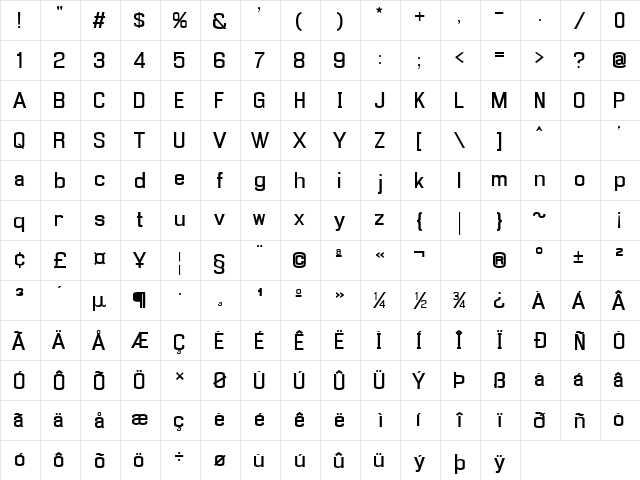
Enigmatic Regular
Design Context for Enigmatic Typeface
Enigmatic takes a measured approach to typography — its balanced proportions and neutral character make it a reliable workhorse for both digital and print work.